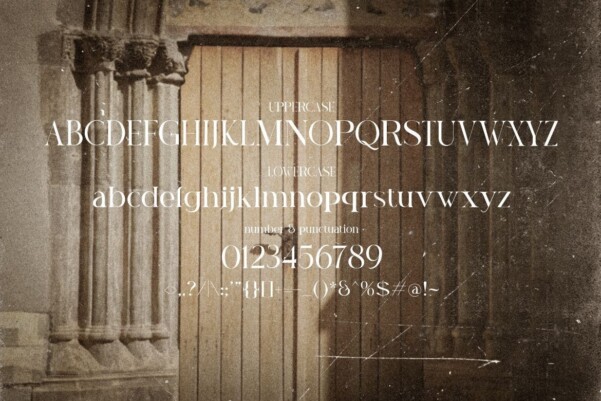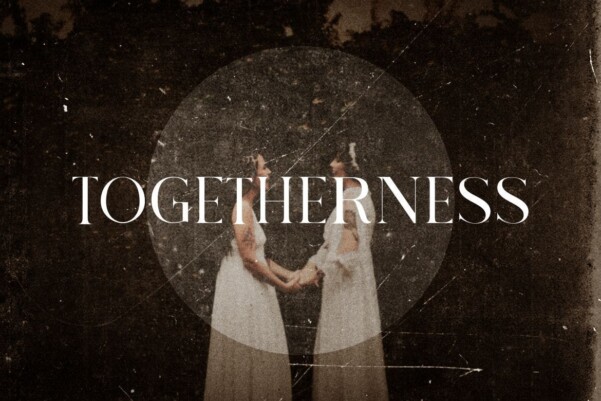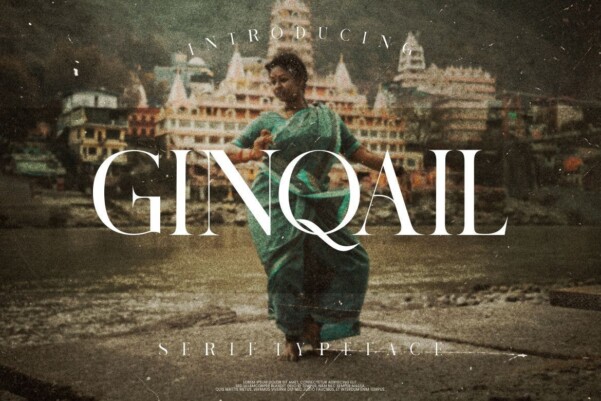
Ginqail Font
Ginqail Font, elegant simple and modern serif font. The feel is elegant and beautiful. This font brings you a beautiful and modern atmosphere. suitable for posters, book covers, cards, merchandise, etc.